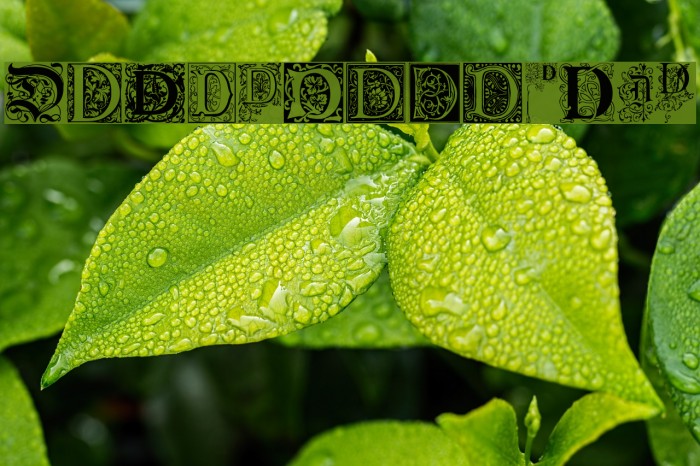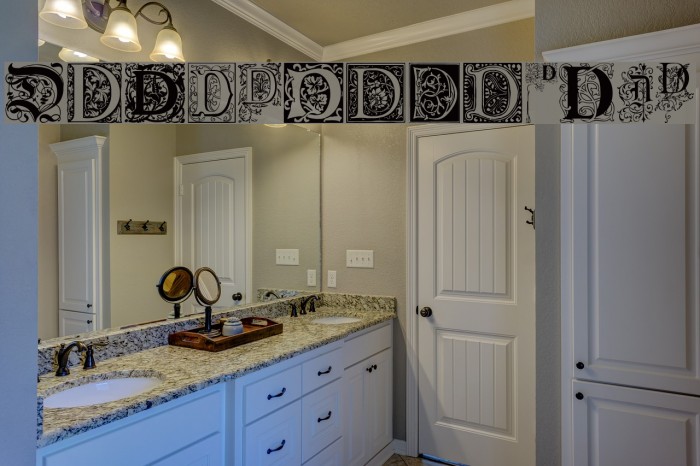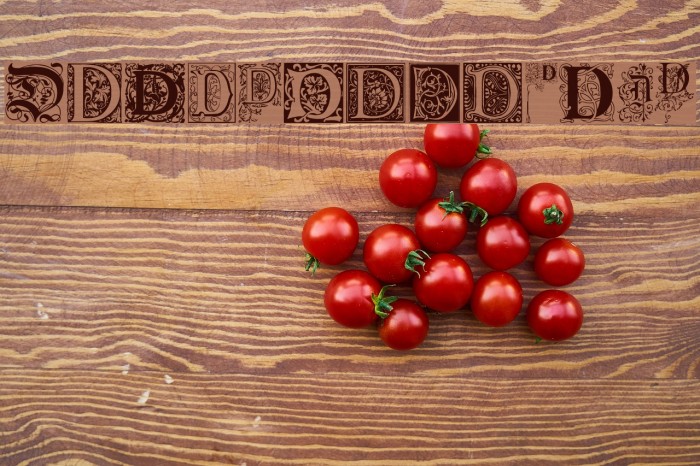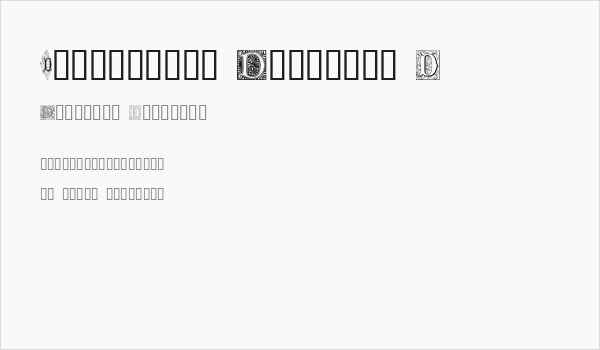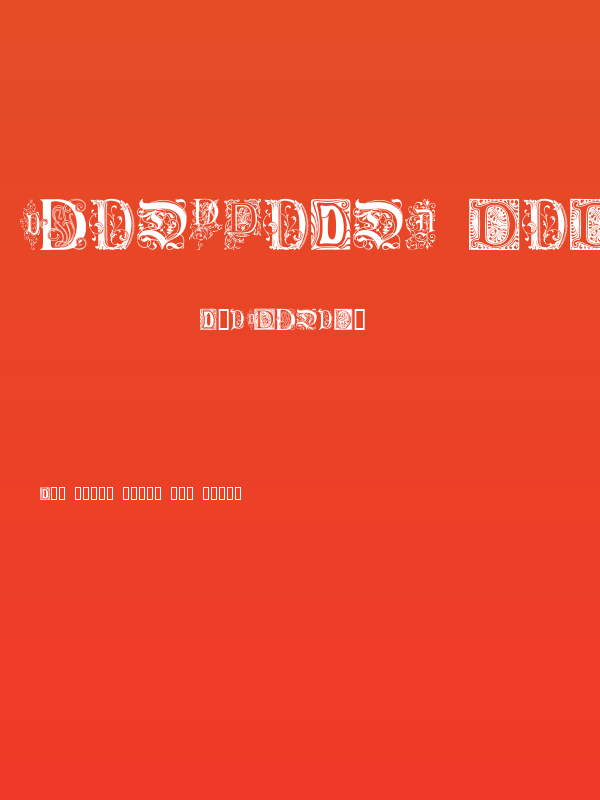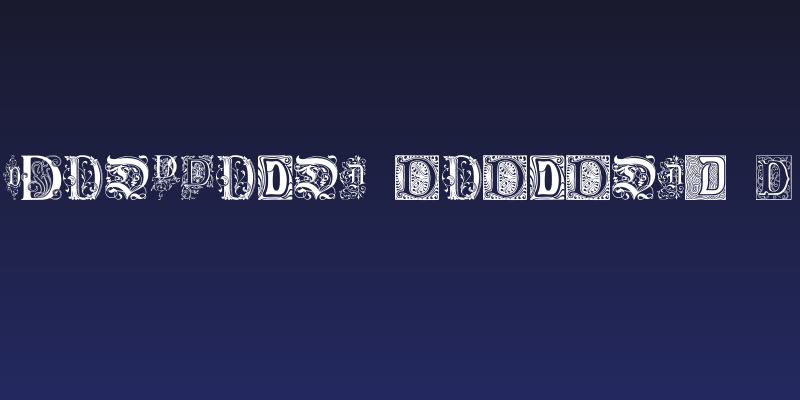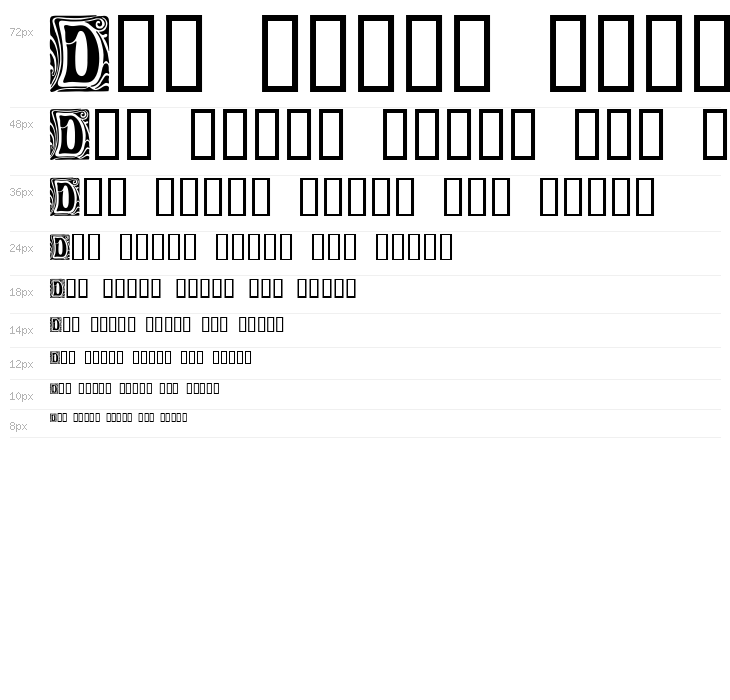
Ornamental Initials D Font
Ornamental Initials D Description
This font features highly decorative and ornamental initials, each letter enclosed within an intricate design that includes floral and abstract motifs. The letters are bold and prominent, making them ideal for decorative purposes. The style is reminiscent of vintage or classical typography, often seen in historical manuscripts or decorative prints. The embellishments around each letter add a sense of elegance and grandeur, making it suitable for projects that require a touch of sophistication and artistry.
| Use Case | Logos, Headlines, Decorative elements |
| Proposed Projects | Ideal for wedding invitations, historical document recreations, decorative book covers, and artistic posters. |